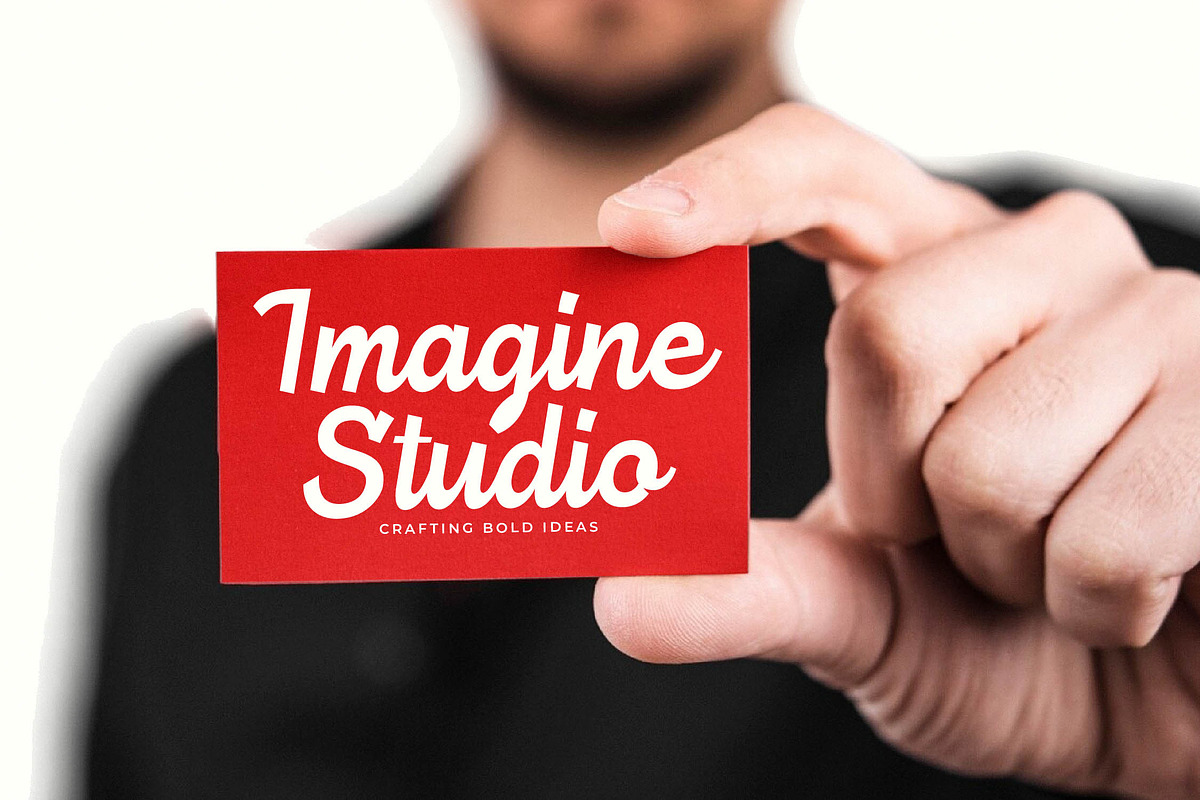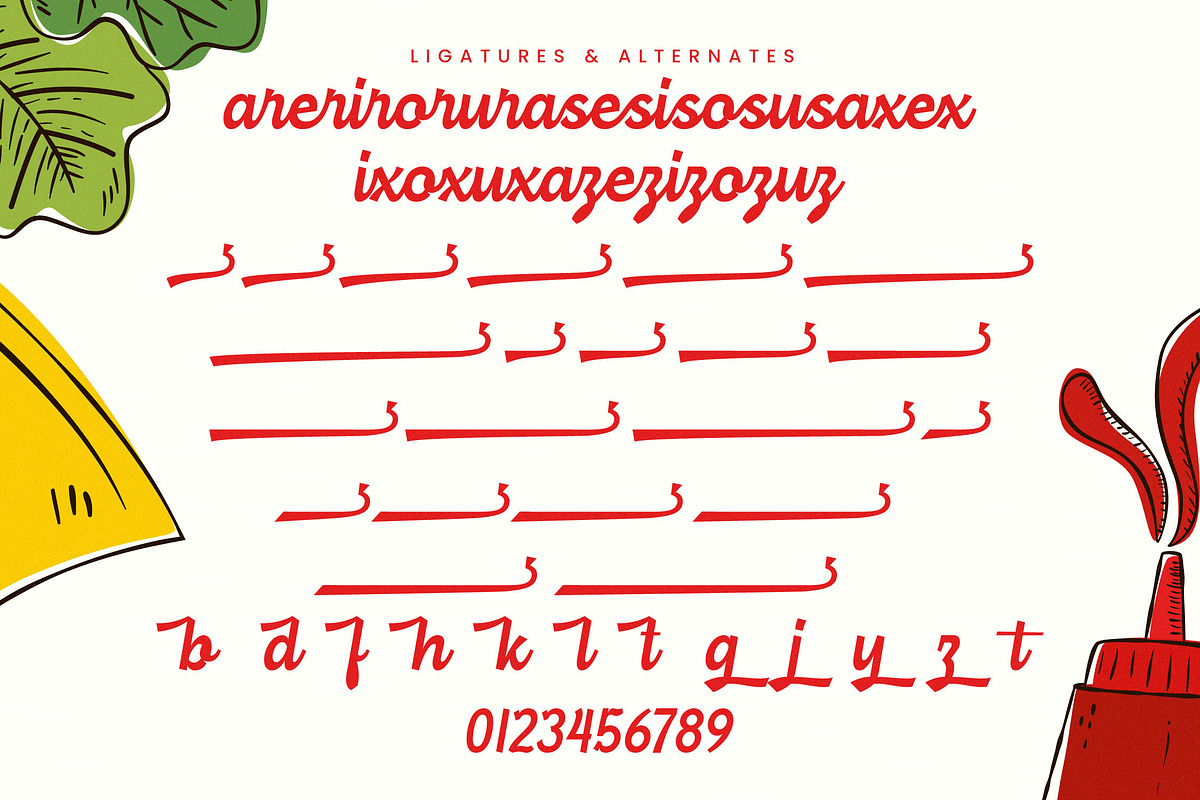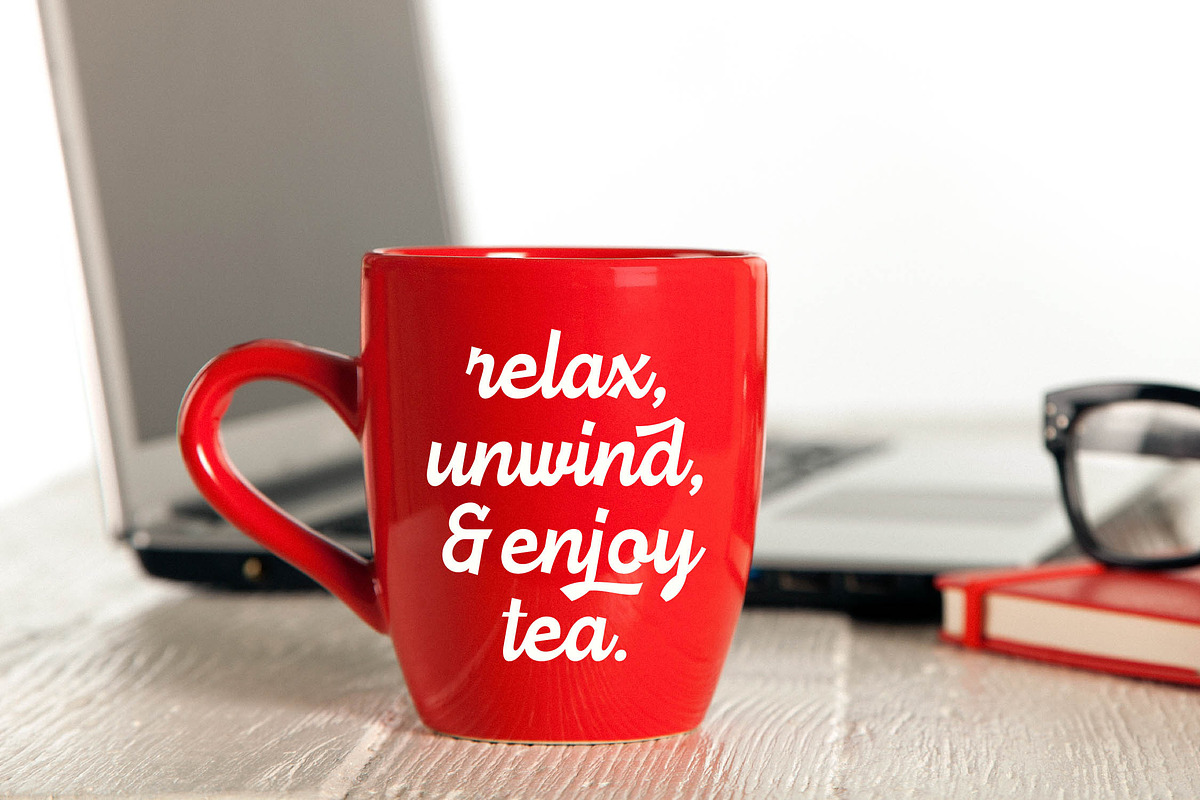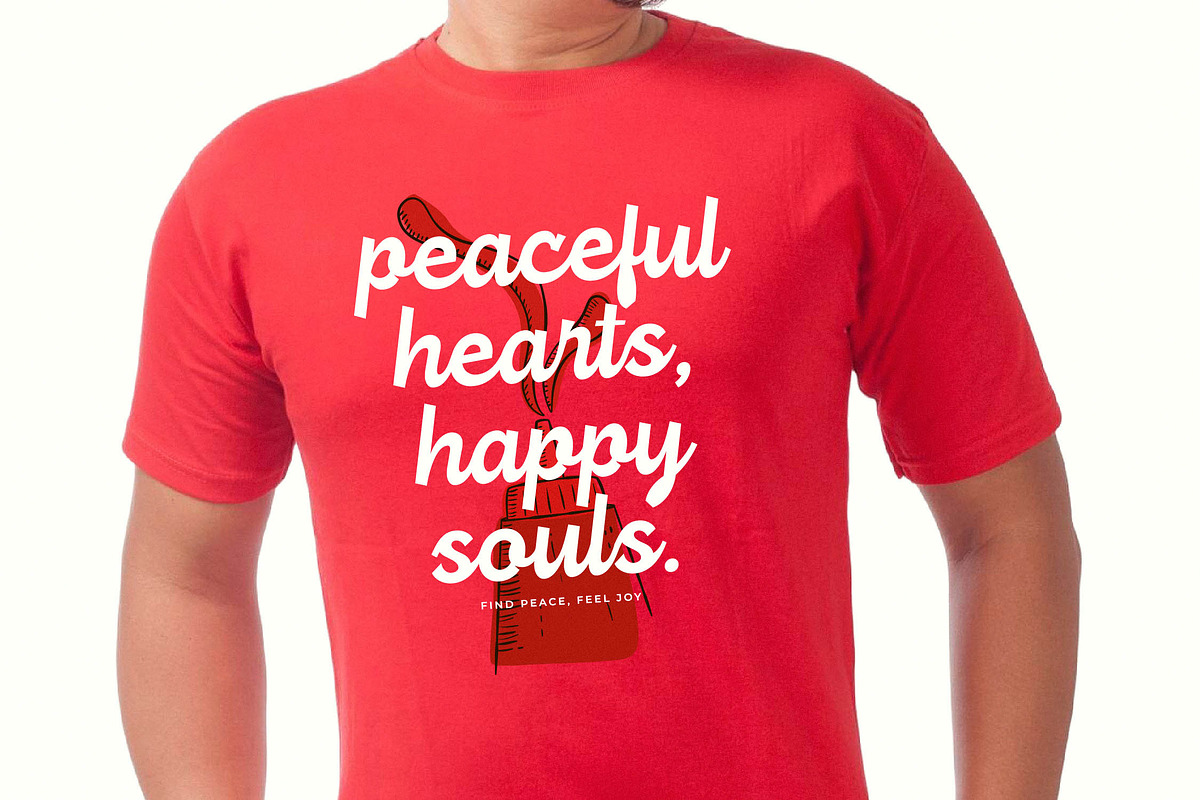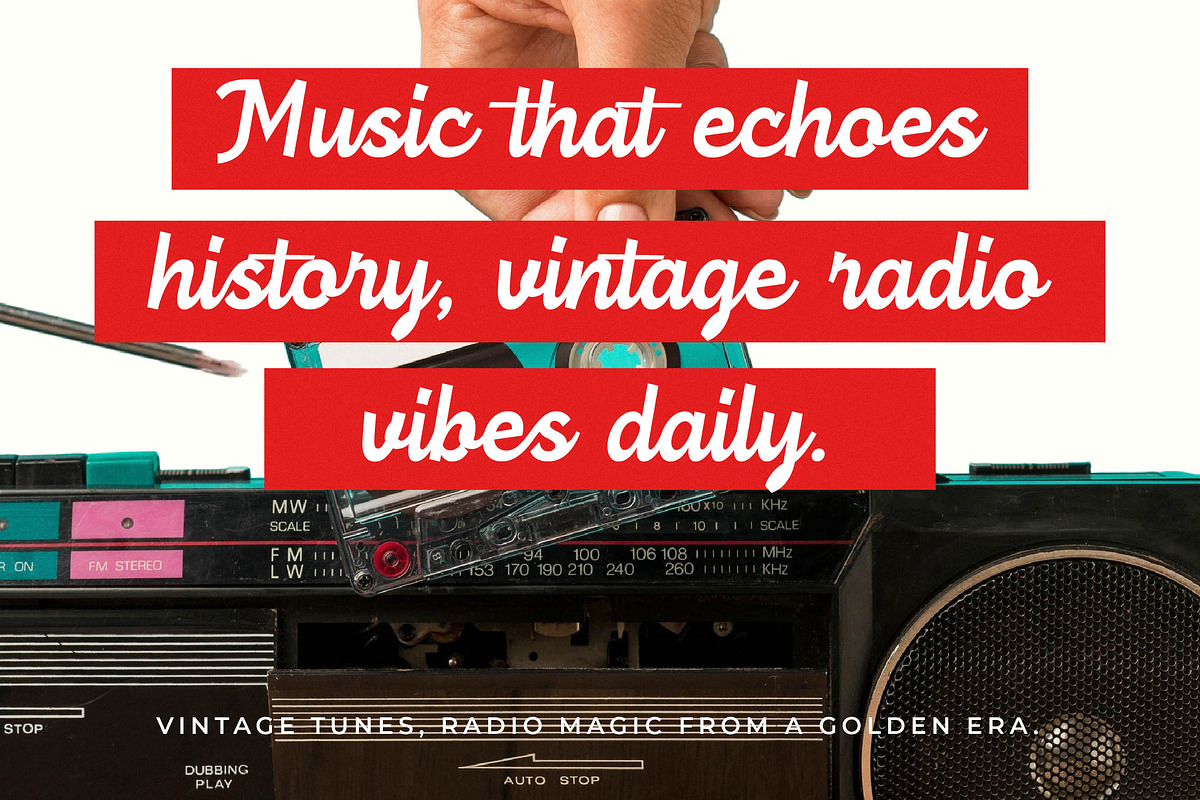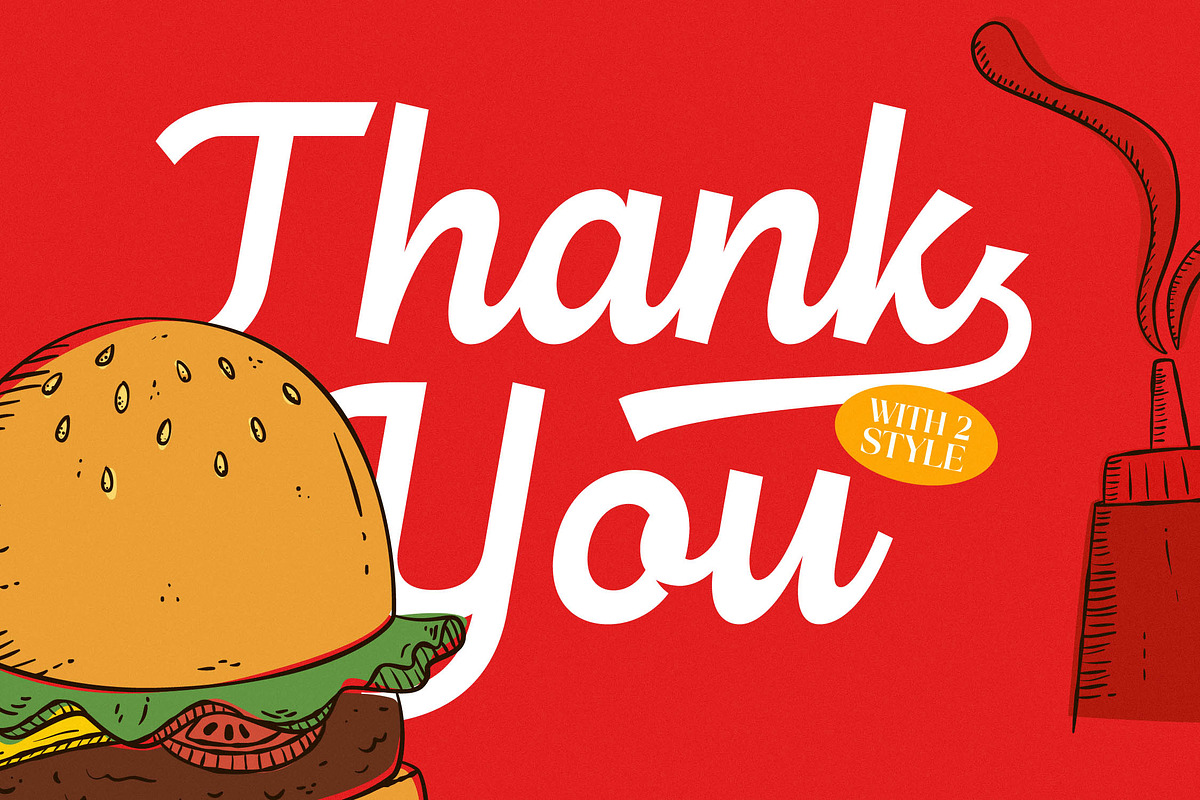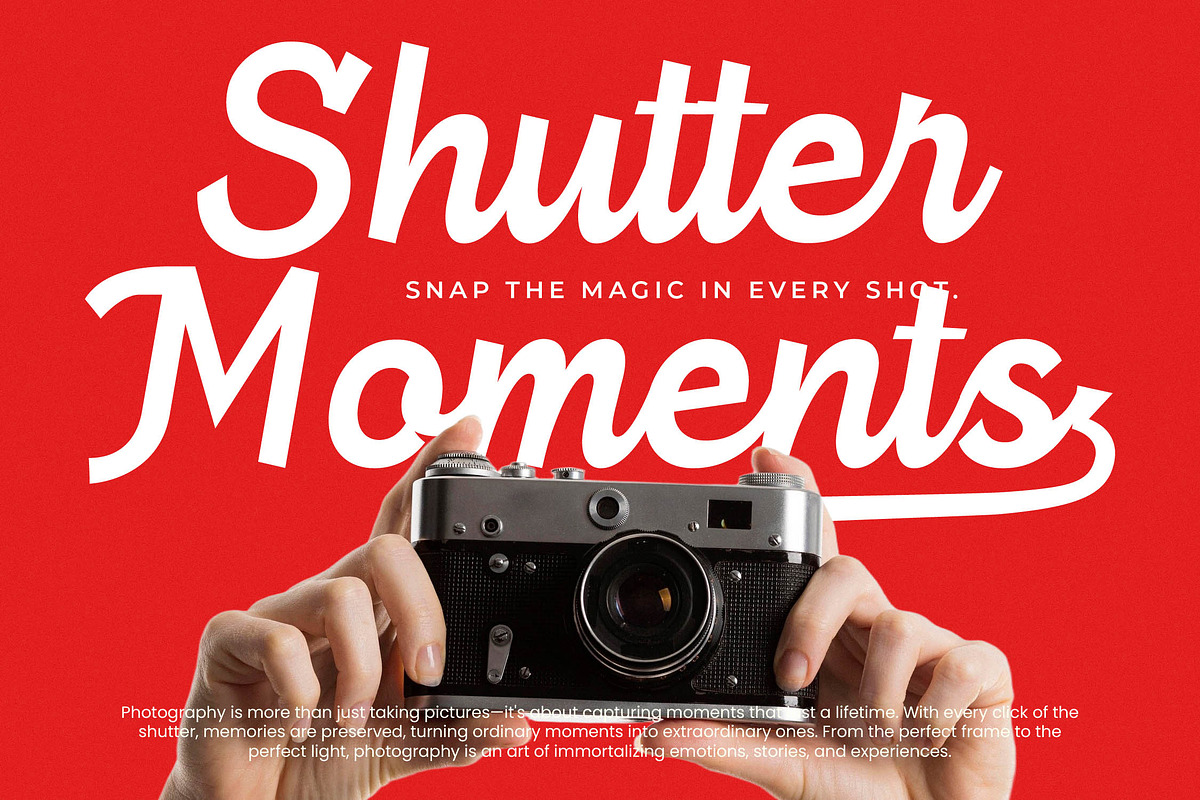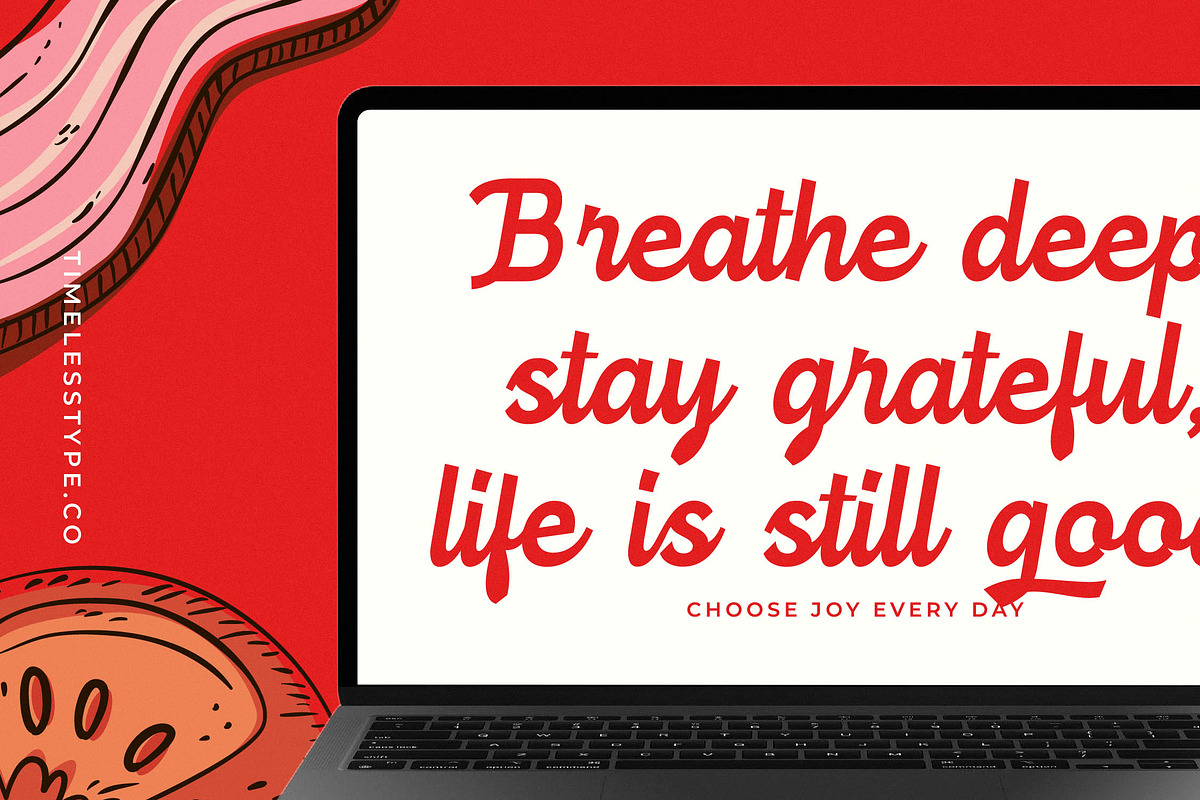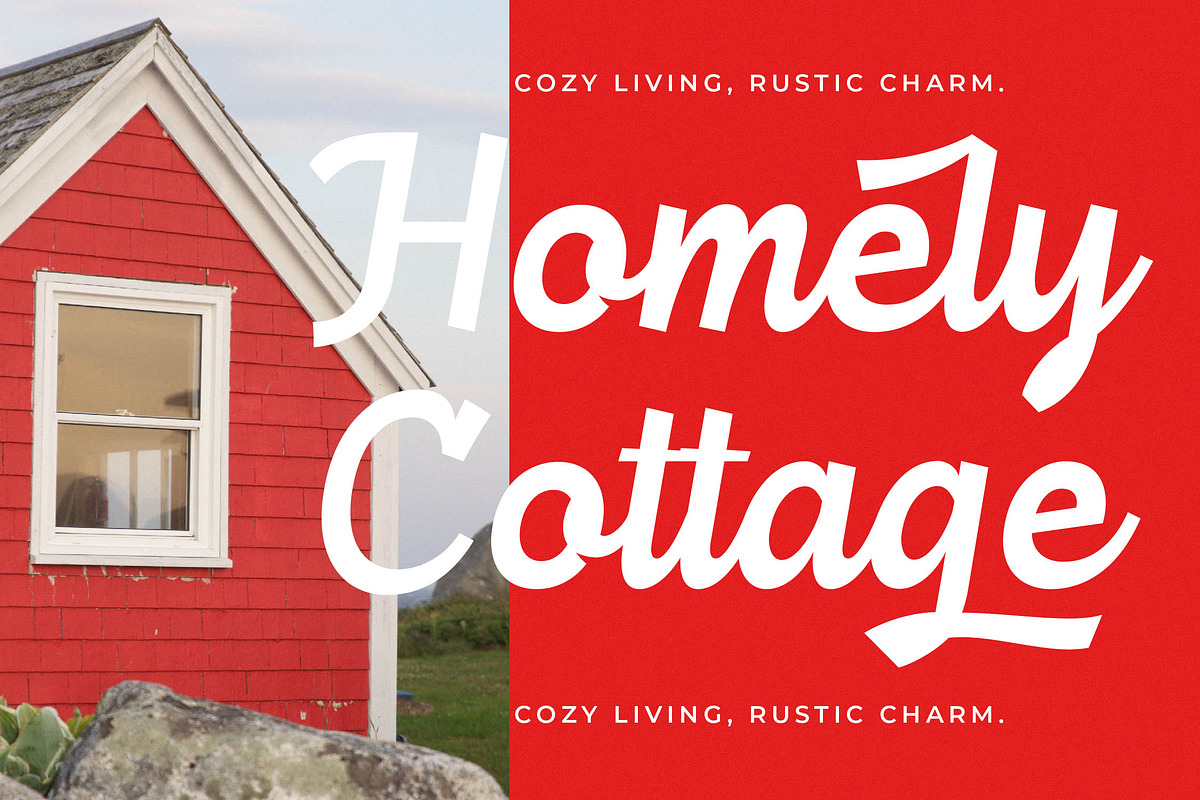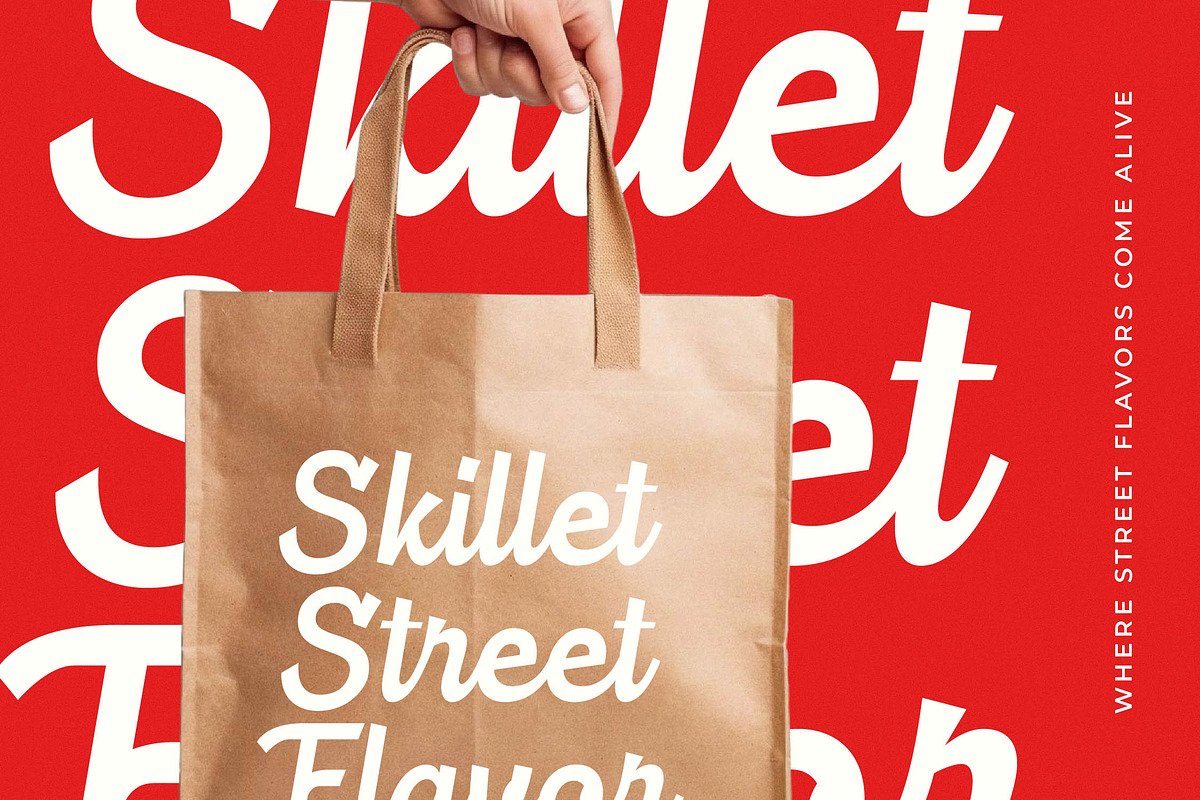
Burger Magis Modern Script Font
Indulge your creative appetite with Burger Magis, a vibrant and energetic script that adds a dash of flavor to every design. This font is crafted to make your message as irresistible and bold as a gourmet feast.
Inspired by the nostalgic charm of vintage diner signage and the hand-painted artistry of street food culture, this typeface captures a sense of warmth and authenticity. It mirrors the fluid motion of a chef’s signature, bringing an organic, handmade feel to digital canvases.
With its thick, confident strokes and rhythmic flow, this typeface offers a unique alternative to a modern serif display while providing the elegance of luxury typography. It is engineered for maximum branding impact, ensuring that your headlines stand out with a high-contrast serif weight that defines high-end editorial font selections.
Riding the wave of the current modern serif trend, this typeface perfectly aligns with the demand for character-driven typography in today's visual landscape. It provides the versatility needed for editorial display fonts that bridge the gap between retro aesthetics and contemporary minimalism.
From eye-catching logo design to cohesive branding projects, this font excels in diverse environments like food packaging and cafe menus. While it shines in the culinary world, its expressive nature also makes it a sophisticated choice for editorial layouts, wedding invitations, and high-street fashion lookbooks.
This comprehensive pack includes a rich set of ligatures and alternates to help you customize every word, along with decorative swashes for a truly bespoke look. Full multilingual support and a wide range of international characters ensure your designs can speak to a global audience without losing their distinctive flair.